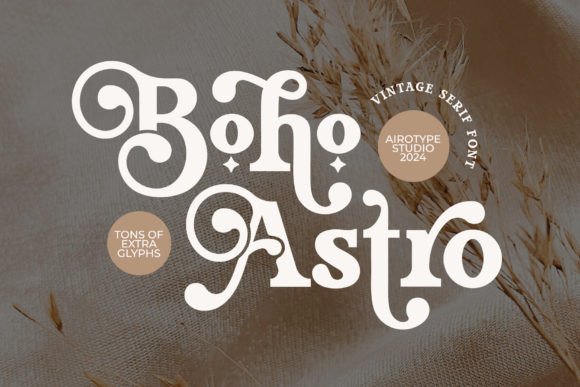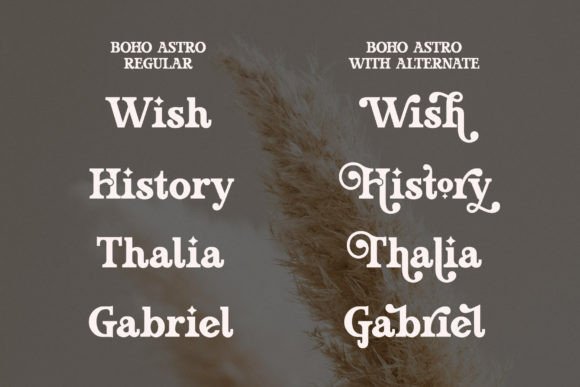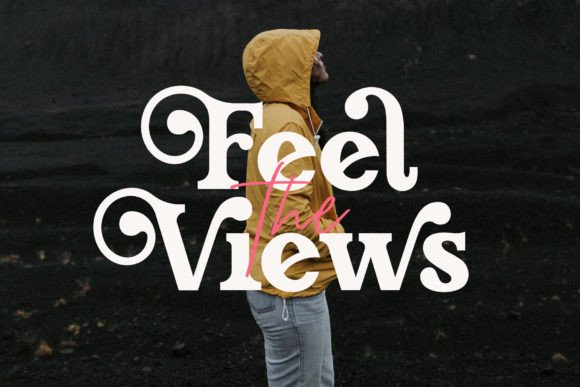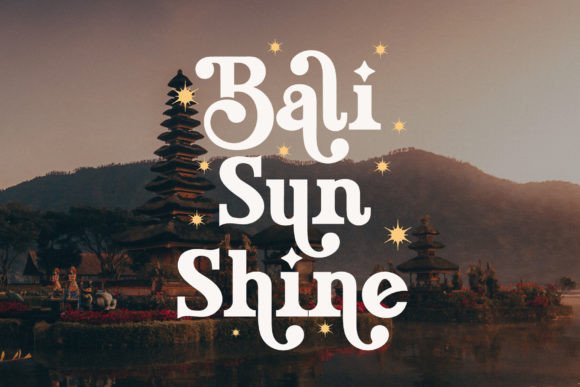
Boho Astro Font: Elegant Vintage Serif with Alternate Glyphs! Typography
About the Boho Astro Font
The Boho Astro Font offers a perfect balance of form and function for your design needs. Boho Astro is a bold modern serif font. It is cool, elegant, and has vintage vibes.
This font is perfect font for any projects with modern vintage touch, such as logo, crafting, wedding invitation, branding, photography, sticker, sublimation, quotes, and many others.
Boho Astro’s bold serifs and vintage-inspired details make it ideal for headlines, logos, and short-form text in branding materials, posters, and packaging. Its strong character also lends itself well to crafting projects and social media graphics where a statement needs to be made. However, the weight and stylistic details aren’t suited to body text or lengthy paragraphs; readability suffers at smaller sizes. Avoid using it for UI elements or applications requiring high legibility.
Pairing Boho Astro effectively depends on the desired balance. For a sophisticated feel, consider pairing it with a clean sans-serif like Montserrat or Lato. To emphasize the vintage aspect, a complementary serif such as Playfair Display or a slightly more playful script font like Great Vibes could work well.
The overall personality is best described as bold, modern, and subtly elegant—a blend of vintage charm and contemporary strength. This makes it a versatile choice for brands conveying a sophisticated yet approachable image.
Boho Astro Font Usage Examples
Boho Astro Font Example